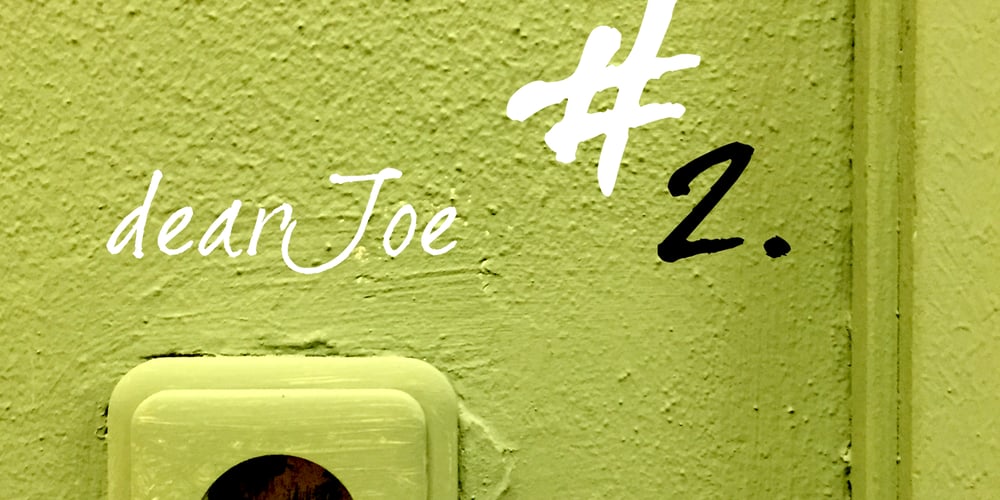
DearJoe 2 Font Family was designed by Jeroen “Joebob” van der Ham and published by JOEBOB graphics. DearJoe 2 contains 1 styles and family package options. DearJoe 2 is the second of four handwritten scripts by JOEBOB graphics. A complete character set with numbers and most (but not all) special signs.